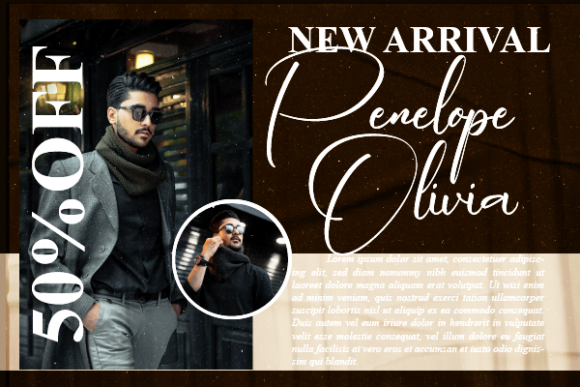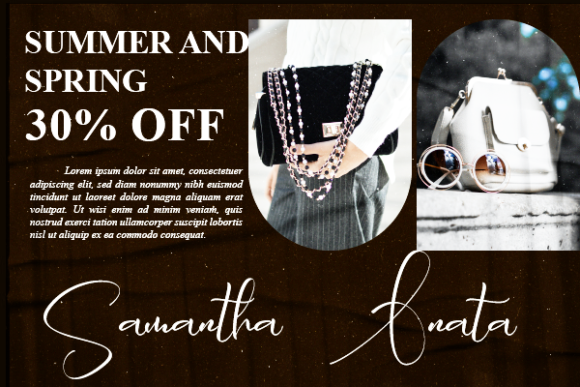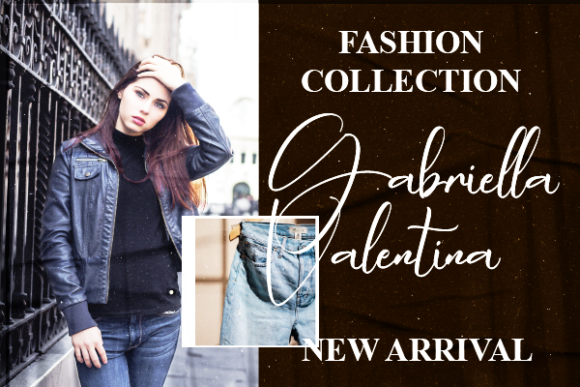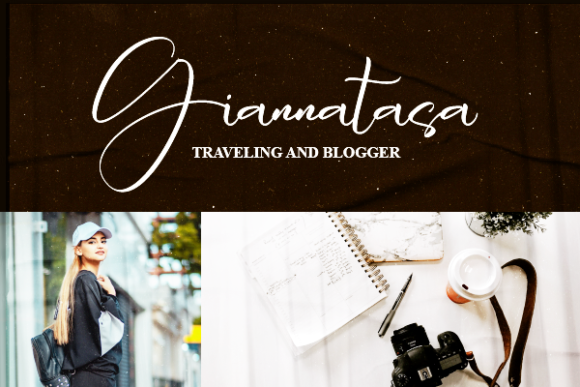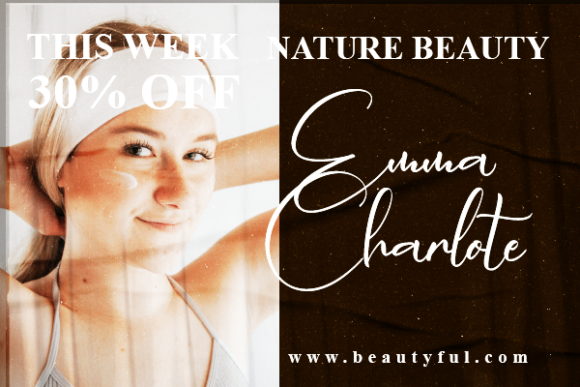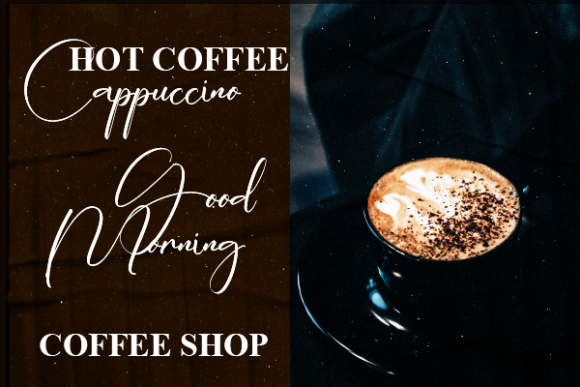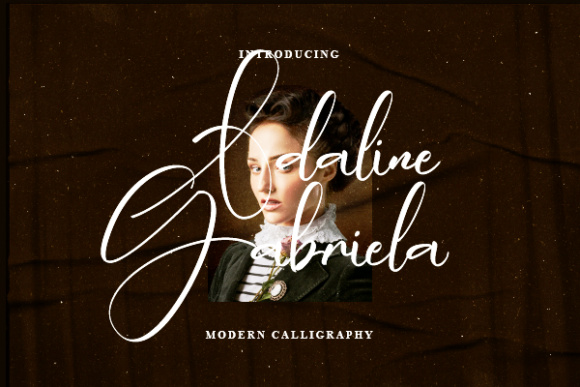
The Designer’s Delight: Adaline Gabriela Font
A Personal Review: What I Love About Adaline Gabriela Font
Adaline Gabriela Font is a delicate and fashionable script font that has quickly become a staple in my design toolkit. Here’s what I love about it:
- ✨ Elegant and Refined: Adaline Gabriela Font boasts a sophisticated, cursive style that’s perfect for high-end branding projects, logos, and creative products.
- ✅ Versatile: This font looks extraordinary in a variety of contexts, from digital applications to print materials.
- 💫 Unique Character: Adaline Gabriela Font has a distinct personality that sets it apart from other script fonts, making it ideal for designers looking to create a lasting impression.
While Adaline Gabriela Font is an excellent choice for many design projects, there are a few minor quirks to be aware of:
- ⚠️ Legibility at Small Sizes: As with many script fonts, Adaline Gabriela Font may lose legibility when used at very small sizes (below 10pt). It’s best to use it at larger sizes or for headlines.
- 🤔 Glyph Limitations: While Adaline Gabriela Font comes with a range of glyphs and OpenType features, it may not have every special character or ligature you need. Be sure to review the font’s capabilities before committing to a project.
The Story Behind Adaline Gabriela Font
Adaline Gabriela Font was designed with the intention of creating a beautiful, elegant script font that captures the essence of refined sophistication. The designer’s inspiration came from classic calligraphy and the flowing lines of handwritten script. The result is a font that exudes luxury, elegance, and poise.
| Font Name | Adaline Gabriela Font |
| What is Adaline Gabriela Font best suited for? | Adaline Gabriela Font is perfect for branding projects, logos, t-shirt printing, creative products, and more. |
| Is Adaline Gabriela Font suitable for body text? | While Adaline Gabriela Font is beautiful, it’s best used for headlines or short paragraphs. For body text, consider a more legible font. |
| Does Adaline Gabriela Font come with OpenType features? | Yes, Adaline Gabriela Font comes with a range of OpenType features, including ligatures, stylistic alternates, and glyphs. |